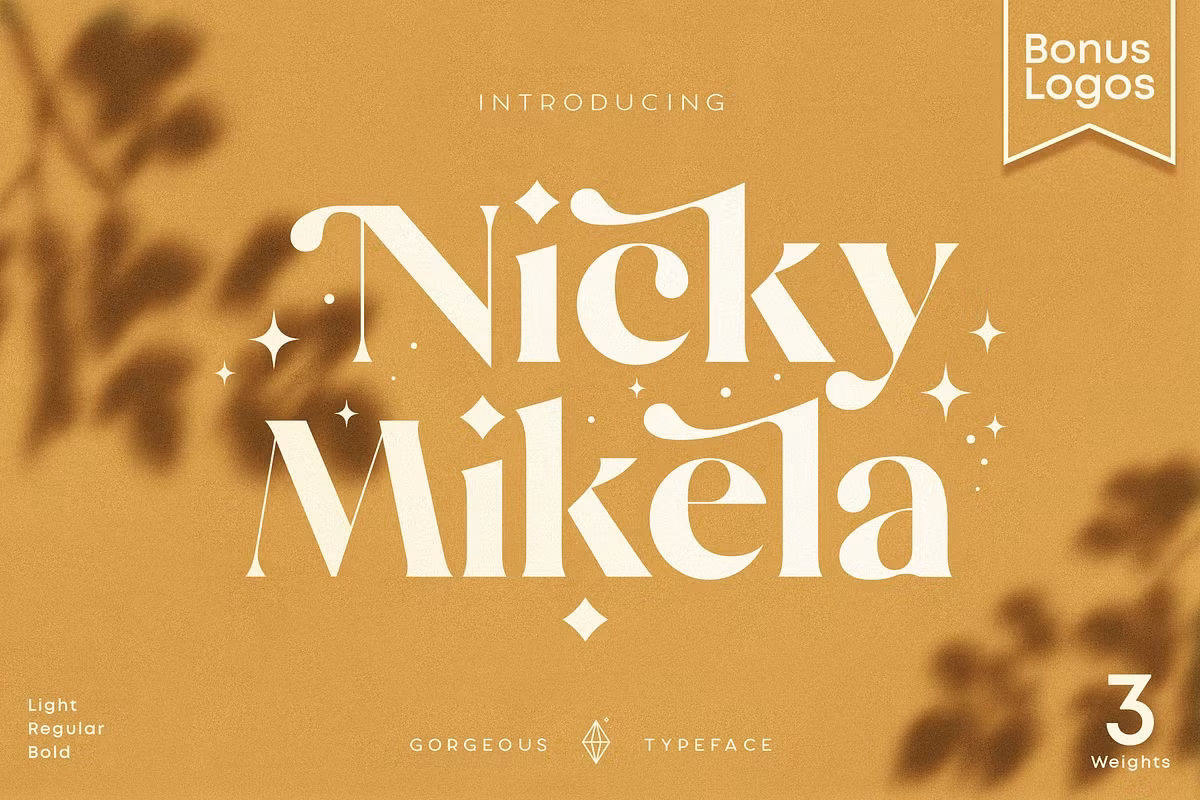
Mikela - Gorgeous Typefaces Free Download is a stunning, fashion-forward font designed to bring elegance and high-end style to any design. With its graceful serifs, sophisticated curves, and luxurious aesthetic, Mikela is perfect for branding, editorial layouts, wedding stationery, packaging, and modern logos. It effortlessly blends classic charm with a contemporary edge.
Ideal for upscale projects, Mikela delivers a refined presence that works beautifully in both large headlines and subtle typographic accents. Whether you're designing for a boutique brand or an elegant magazine spread, this typeface adds the perfect finishing touch.